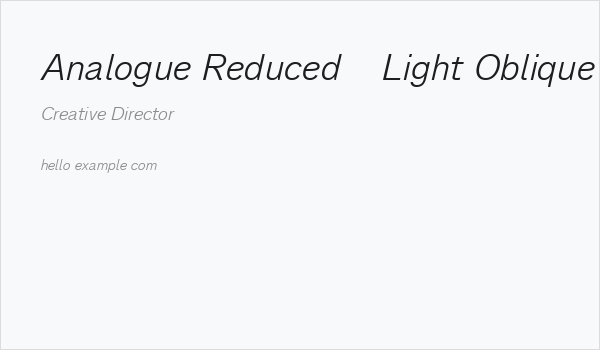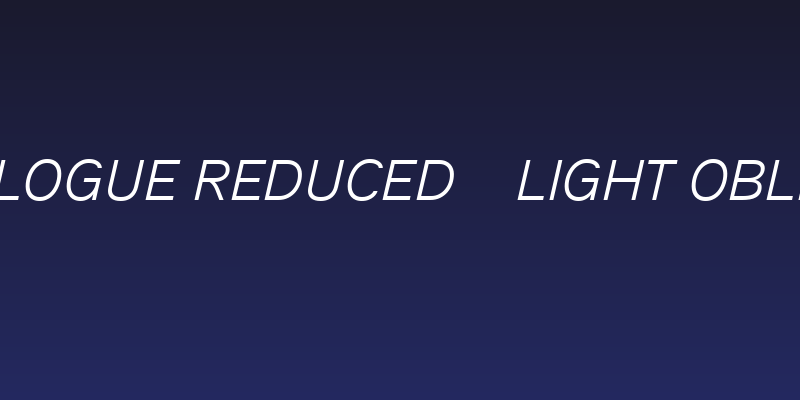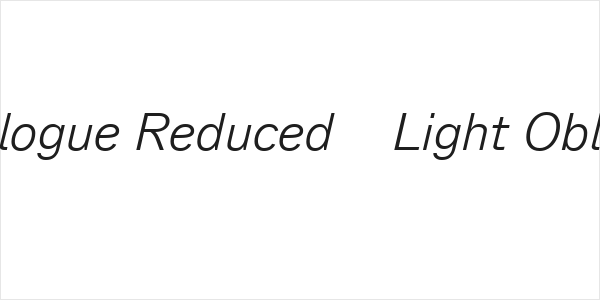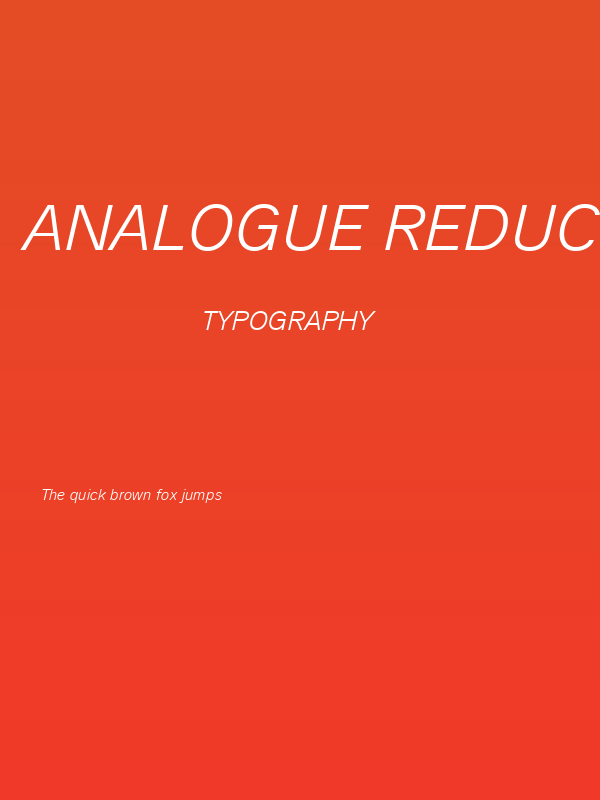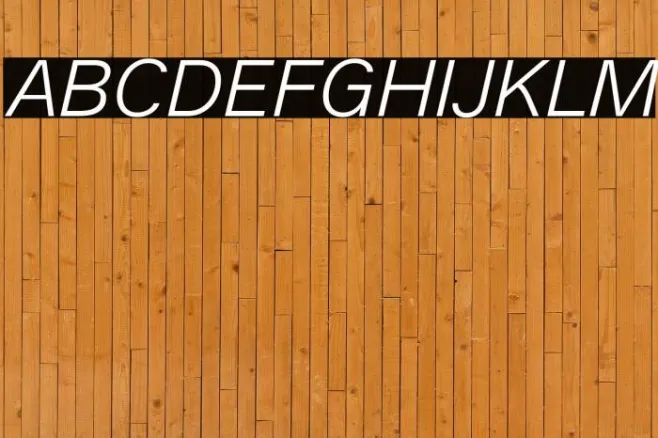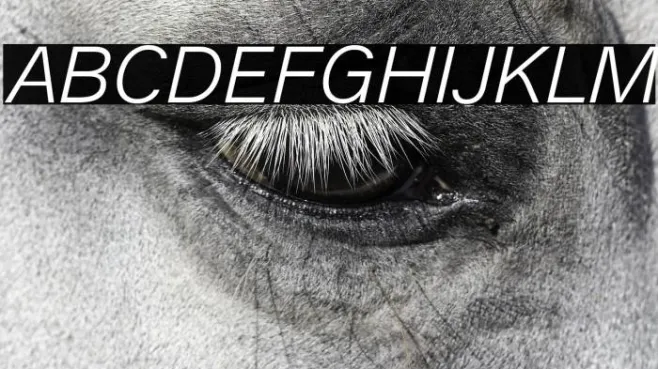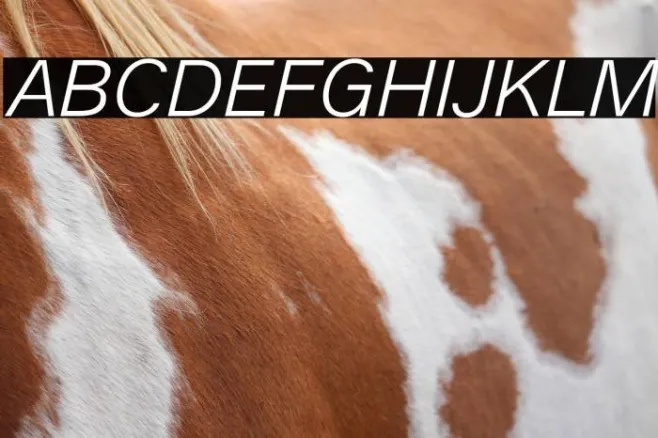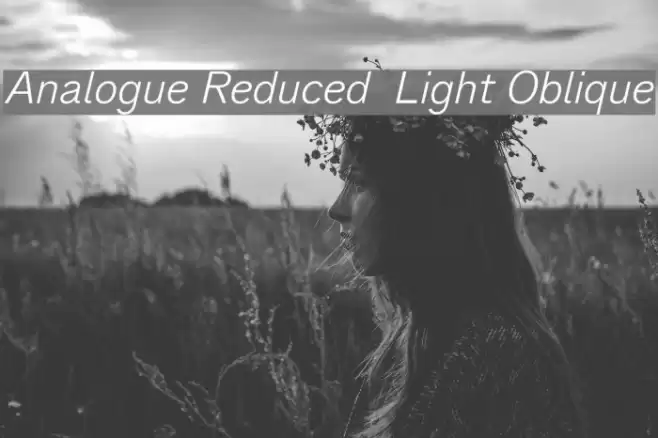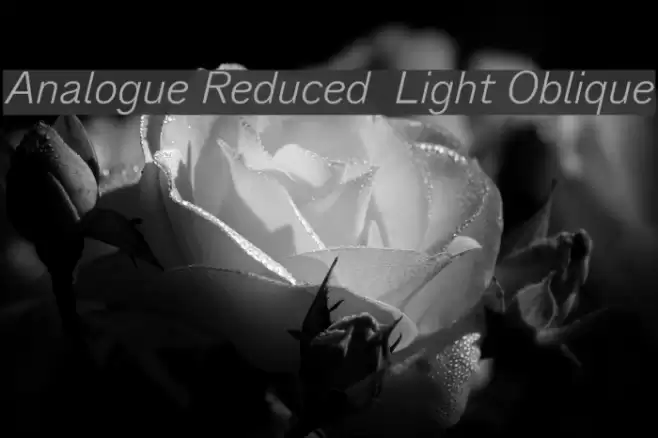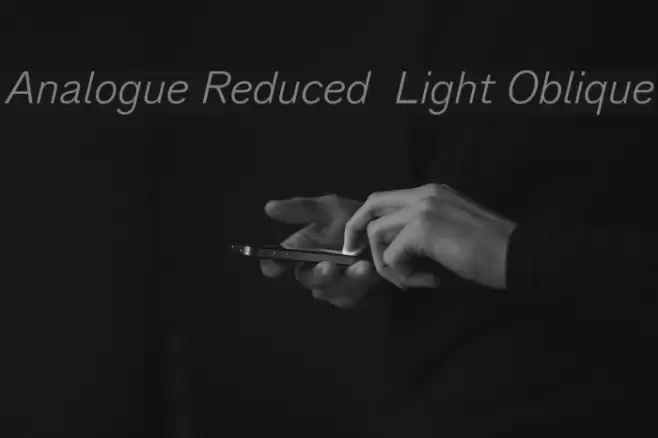
Analogue Reduced 46 Light Oblique Font
Analogue Reduced 46 Light Oblique Description
This font exhibits a sleek and modern design with a light oblique style, characterized by its clean lines and subtle slant. The uppercase and lowercase letters maintain a consistent and harmonious flow, enhancing readability while adding a touch of elegance. The numerals and special characters are designed with the same attention to detail, ensuring a cohesive look across all text elements. The font's minimalistic approach makes it versatile for various applications, from digital interfaces to print media.
| Use Case | Headlines, Body text, Logos |
| Proposed Projects | Ideal for modern branding, digital interfaces, editorial design, and minimalist print projects. |